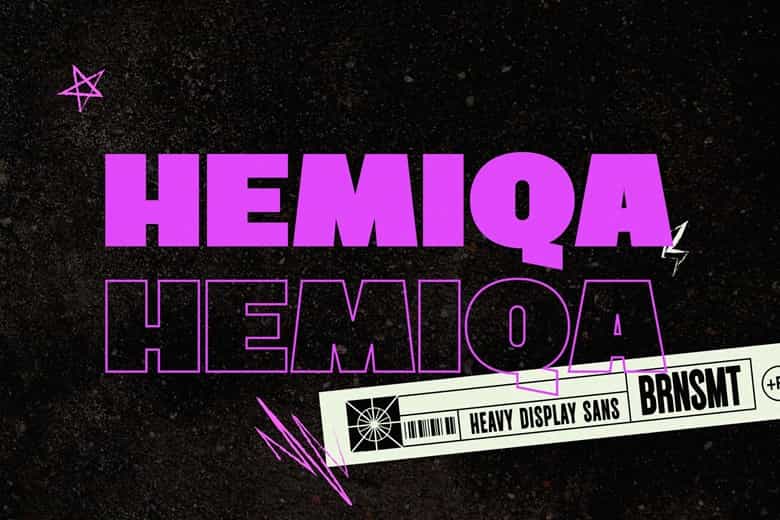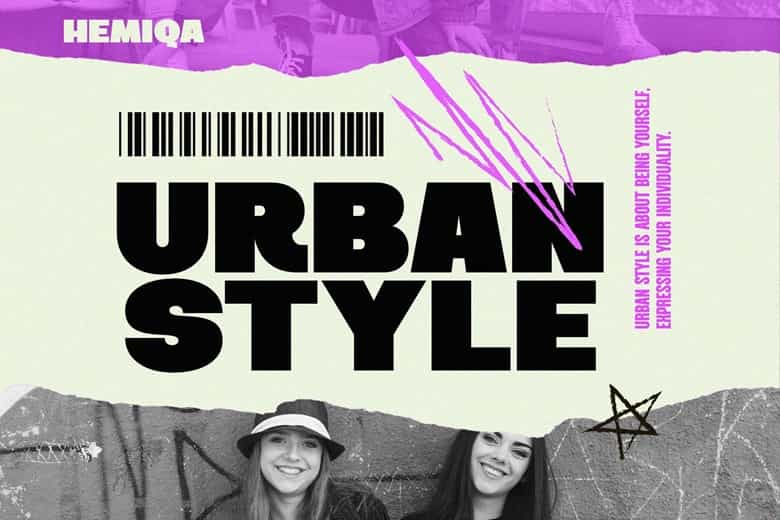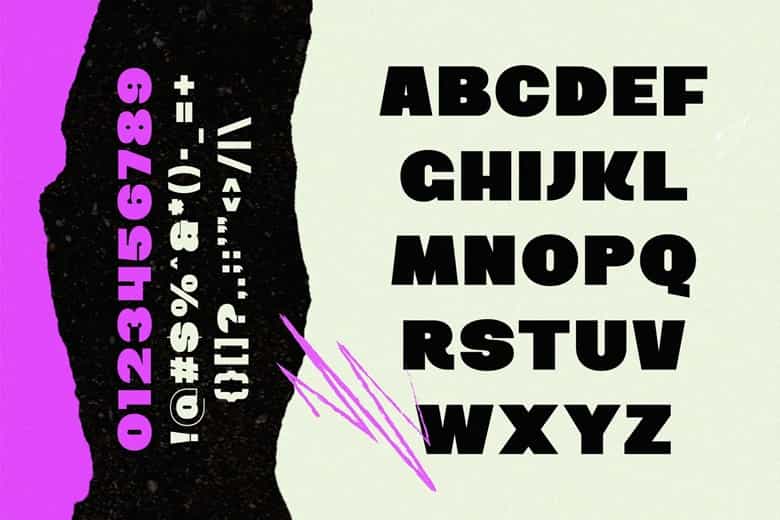
Hemiqa is a heavy display sans font and has been originated & developed by Brandsemut & has a pretty bold look. This font is modern simple and convenient to be applied as display fonts for headlines, logos, brands, magazines, product packages, and invitations. Hemiqa are as clean lines and smooth curves as well as combine that perfect look of class in any project.